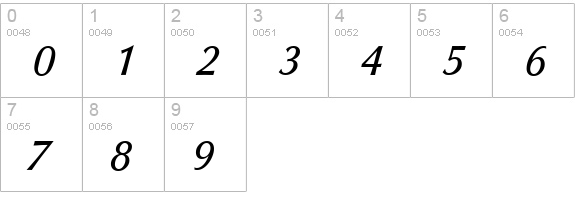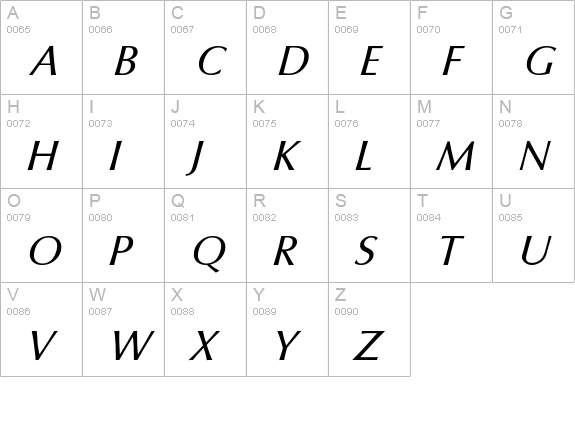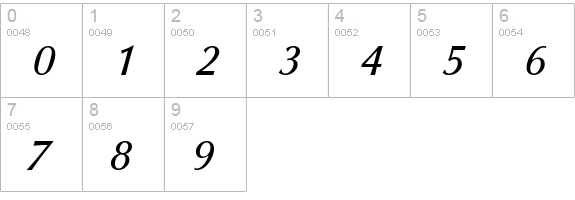
ColumbiaSerial-Italic Font Details
ColumbiaSerial-Italic is a distinctive, italic variant in the ColumbiaSerial typeface family \xE2\x80\x94 well suited to design and typography projects.
ColumbiaSerial-Italic font is a stylish and elegant typeface that exudes sophistication and modernity. Its sleek italic design adds a touch of flair to any project, making it perfect for branding, editorial design, and more. The font features clean lines and a unique aesthetic that sets it apart from other typefaces. Best of all, ColumbiaSerial-Italic font is available for free download at FontsMarket.com, allowing you to enhance your designs without breaking the bank. Elevate your projects with the timeless appeal of ColumbiaSerial-Italic font today!